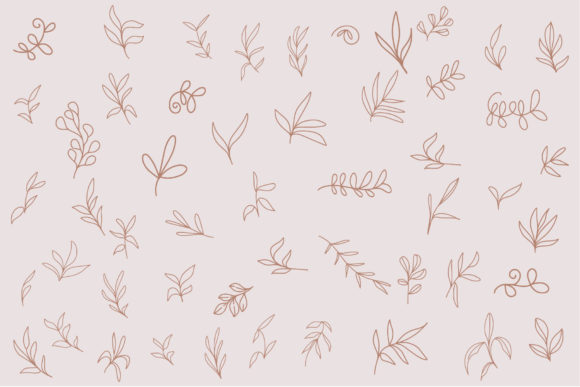
About Botanical Ornaments Font
“Botanical Ornaments” is a dainty and useful dingbats font that adds a touch of nature-inspired beauty to your design projects. Whether you’re a crafter, digital designer, presenter, or greeting card maker, this font is perfect for creating stunning botanical-themed designs.
With “Botanical Ornaments,” you have access to a wide range of botanical elements. From leaves and flowers to vines, branches, and intricate botanical patterns, this font offers a variety of dingbats that can be used to enhance your creations. Whether you want to add a touch of nature to your crafts, create elegant designs for digital projects, or make sophisticated greeting cards, this font has you covered.
When using “Botanical Ornaments,” you can easily incorporate the dingbats into your projects. Simply select the desired botanical element and place it strategically within your design. You can use the elements to create borders, frames, decorative accents, or even standalone botanical illustrations that evoke a sense of natural beauty and tranquility. These elements are perfect for adding a touch of sophistication and elegance to your designs, making them visually appealing and captivating.
One of the great advantages of “Botanical Ornaments” is its versatility. You can use it for a wide range of projects, from crafting and scrapbooking to digital designs and presentations. The botanical theme of the dingbats makes them suitable for various themes and occasions, including nature-inspired designs, botanical illustrations, garden-themed events, and more. Whether you’re creating invitations, botanical patterns, or captivating presentations, this font provides the elements you need to infuse your designs with botanical charm.
To make the most of “Botanical Ornaments,” experiment with different combinations and placements of the dingbats. Mix and match leaves, flowers, and other botanical elements to create custom designs that convey your desired natural aesthetic. You can also adjust the size, color, and positioning of the elements to suit your design preferences and make them stand out.
Overall, “Botanical Ornaments” is a dainty and useful dingbats font that allows you to add a touch of nature-inspired beauty to your design projects. Whether you’re creating crafts, digital designs, presentations, or greeting cards, this font provides a variety of botanical elements to enhance your creations. With its versatility and ability to evoke a sense of natural elegance, “Botanical Ornaments” is the perfect addition to your font library, enabling you to effortlessly create stunning and visually captivating designs that celebrate the beauty of nature.